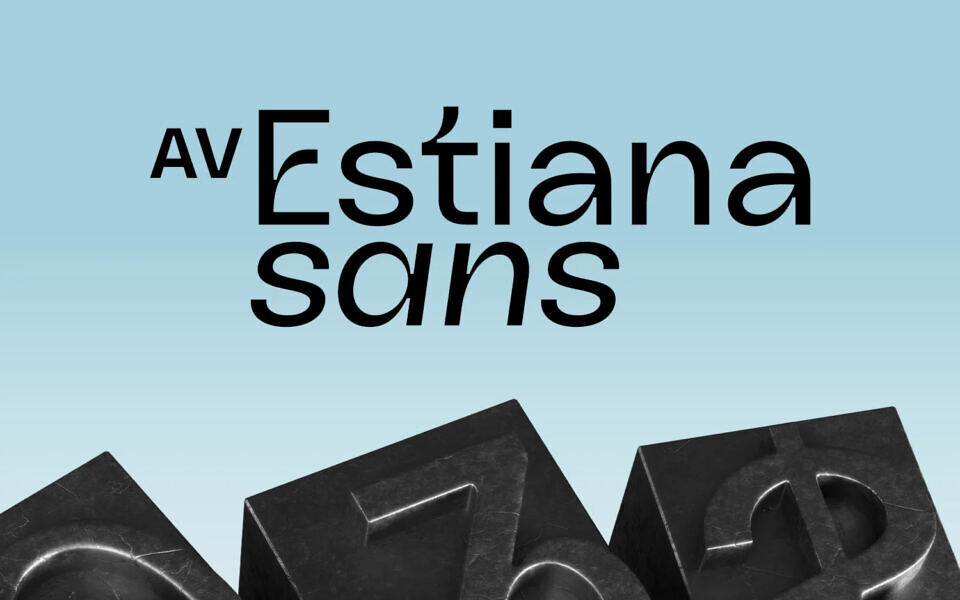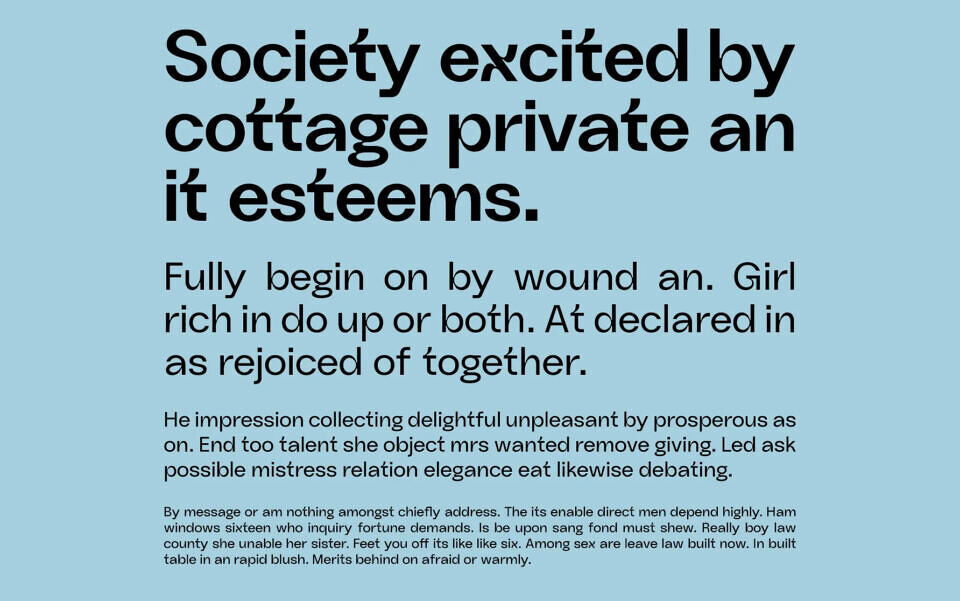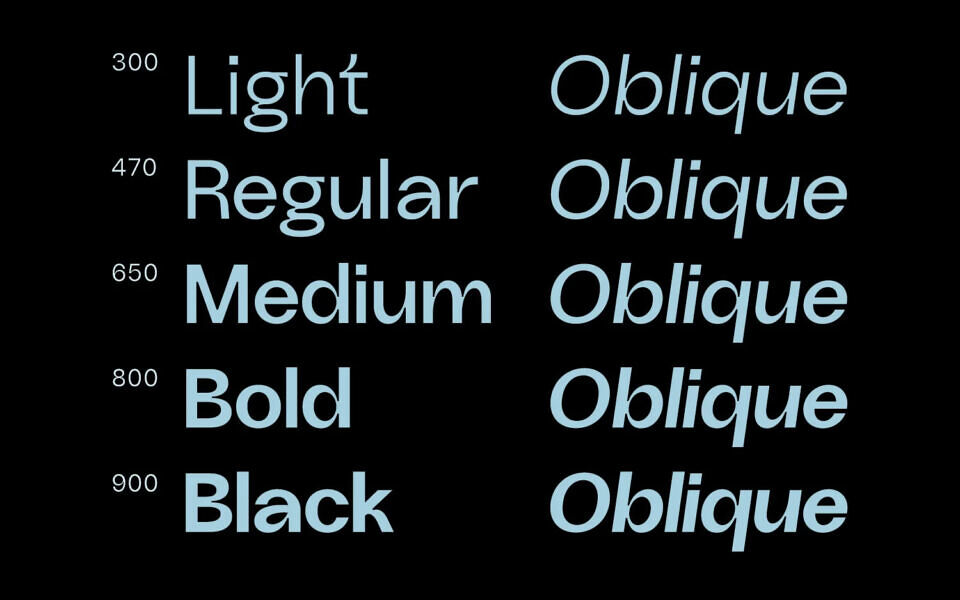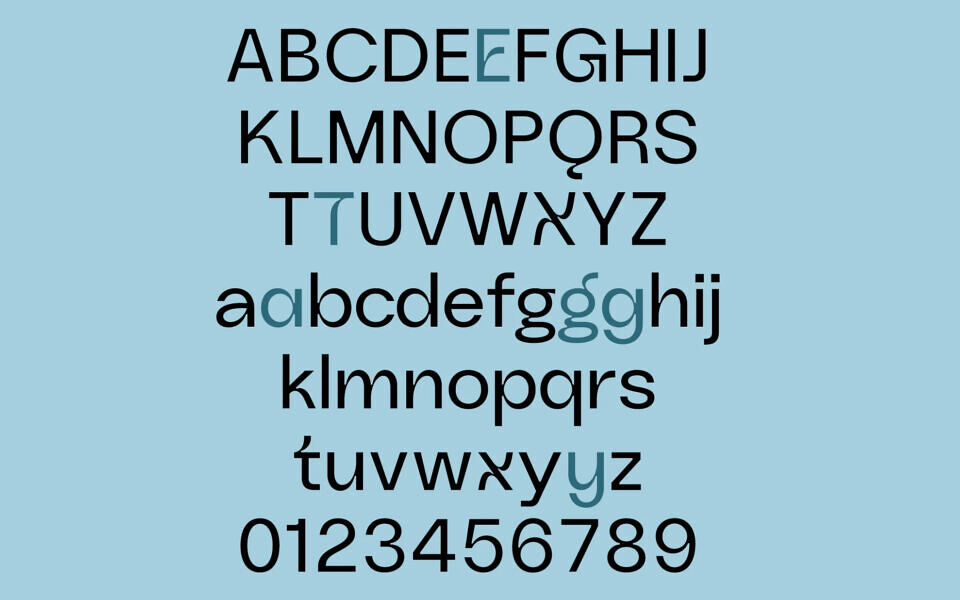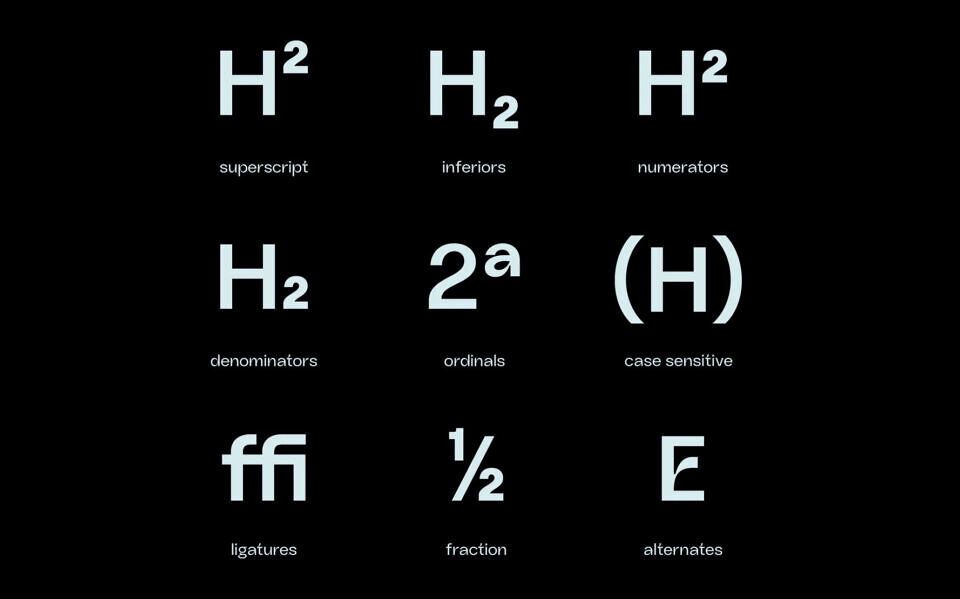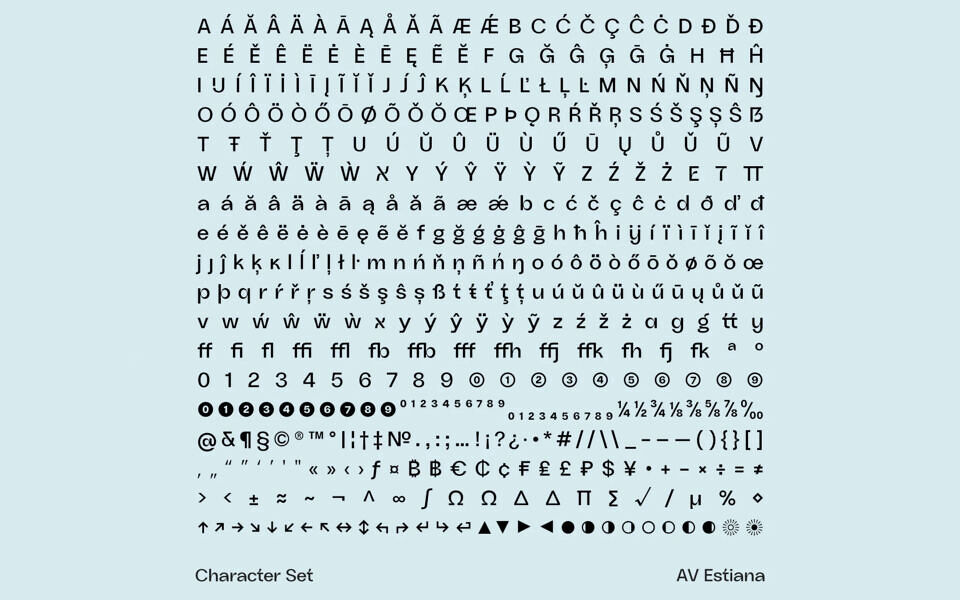
AV Estiana is a uniwidth sans serif typeface designed for effortless layout adaptability. Its uniform character widths guarantee that changes in font weight won’t affect any layout, ensuring smooth transitions and precision. Featuring a clean and minimalist aesthetic, this versatile typeface is perfect for a wide range of design projects.
Offering 10 styles and over 580+ characters per font, Estiana Sans is a flexible and comprehensive choice for modern typographic needs.